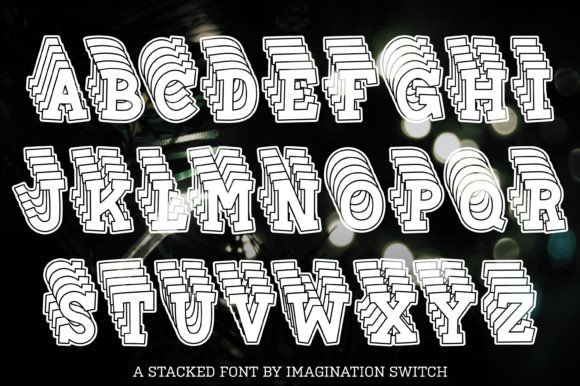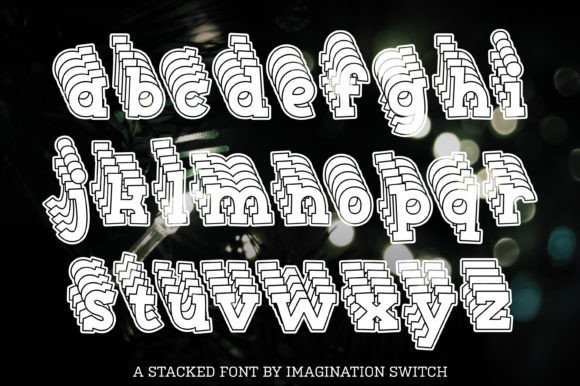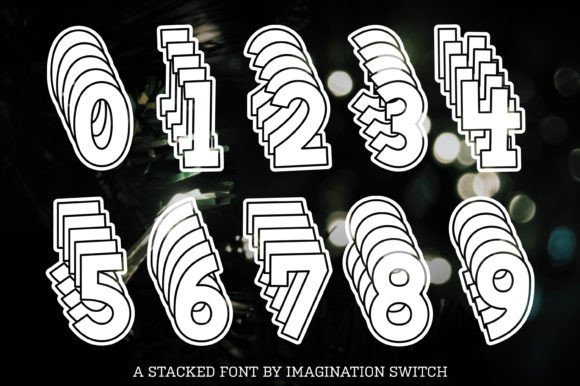
Introducing December Font: Elevate Your Designs with Elegance
Are you on the hunt for a font that exudes sophistication and style? Look no further than December Font, a stunning display stacked font that is sure to elevate your designs. With its elegant stacked style, each letter appears dimensional and captivating, making it perfect for various purposes and moods.
What is December Font?
December Font is a display stacked font that features a unique and eye-catching design. Its stacked style gives each letter a three-dimensional appearance, making it stand out from the crowd. The font is meticulously crafted to ensure that every letter, from A to Z, is not only beautiful but also highly legible.
Key Features of December Font
- Elegant Stacked Style: The font’s stacked design gives it a distinctive and sophisticated look that is sure to grab attention.
- Dimensional Appearance: Each letter appears three-dimensional, adding depth and visual interest to your designs.
- High Legibility: Despite its unique design, December Font remains highly legible, making it suitable for a wide range of applications.
- Versatile: This font can be used for various purposes, from branding and advertising to packaging and more.
Who Can Benefit from December Font?
December Font is perfect for designers, crafters, and businesses looking to add a touch of elegance to their projects. Whether you’re working on a luxury brand campaign, creating festive holiday designs, or simply looking for a font that stands out, December Font is an excellent choice.
Use Cases for December Font
The versatility of December Font makes it suitable for a wide range of applications, including:
- Branding and Logo Design: Create a lasting impression with a unique and memorable logo.
- Advertising and Marketing: Stand out in a crowded market with eye-catching ads and promotional materials.
- Packaging Design: Add a touch of luxury to your product packaging.
- Holiday and Seasonal Designs: December Font is perfect for creating festive and seasonal designs, from Christmas cards to holiday-themed advertising.
Tips for Using December Font
To get the most out of December Font, consider the following tips:
- Use it as a Display Font: December Font is designed to make a statement, so use it as a display font to grab attention.
- Experiment with Colors and Textures: The font’s stacked design looks great with bold colors and textures, so don’t be afraid to experiment.
- Pair it with a Simple Font: For body text, pair December Font with a simple, easy-to-read font to create visual contrast.
December Font is a stunning display stacked font that is sure to elevate your designs. With its elegant stacked style, dimensional appearance, and high legibility, it’s perfect for various purposes and moods. Whether you’re a designer, crafter, or business owner, December Font is an excellent addition to your font collection.